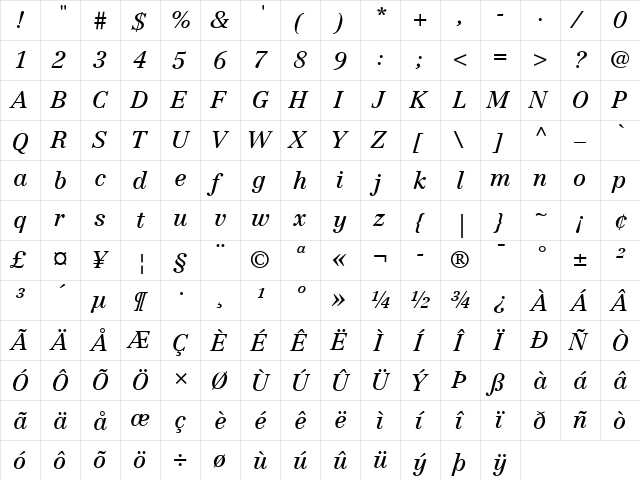
Centennial LT 55 Roman Italic Font Preview
Design Context for Centennial LT 55 Roman Typeface
Centennial LT 55 Roman is a composed and adaptable typeface that performs quietly and consistently across a wide range of design contexts. The slanted form adds forward momentum and visual energy. Its slender proportions lend an understated elegance to any composition.
Pro Tip: Try Centennial LT 55 Roman for annotation and caption copy alongside an upright companion — the contrast in angle creates a dynamic but ordered typographic system.